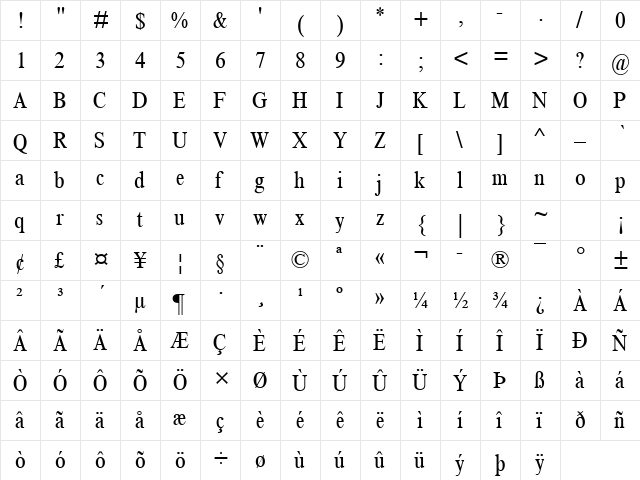
Times New Roman Condensed Regular
| Foundry | Monotype Typography |
| Designer | Stanley Morison, Victor Lardent |
Design Context for Times New Roman Condensed Typeface
Times New Roman Condensed offers clean, dependable letterforms without strong stylistic allegiance, making it a practical choice for designers who need flexibility. Its narrow stance lets it pack a punch even in space-constrained designs.